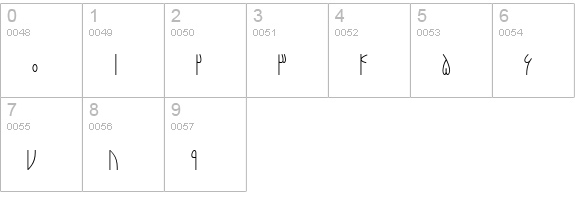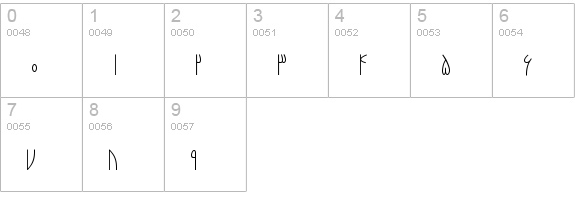
B Narenj Font Details
B Narenj is a stunning and elegant font that exudes sophistication and charm. Its delicate curves and smooth lines make it perfect for adding a touch of class to any design project. This versatile font is suitable for a wide range of applications, from branding to invitations to signage. The best part? B Narenj is completely free to download at FontsMarket.com! This means you can effortlessly elevate your projects with this beautiful font without any added cost. Whether you're a designer looking for a new go-to typeface or a hobbyist wanting to enhance your creations, B Narenj is the ideal choice. Download it today and let your creativity shine with this exquisite font.